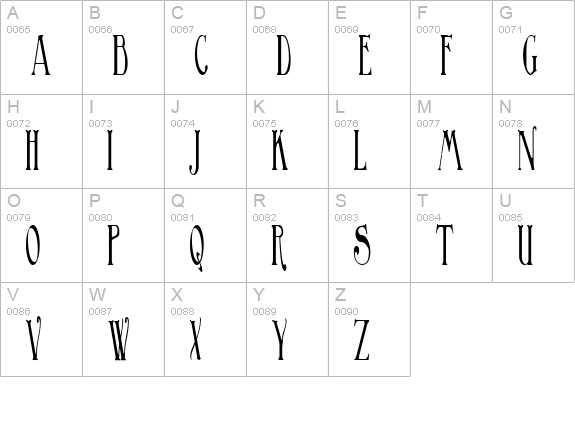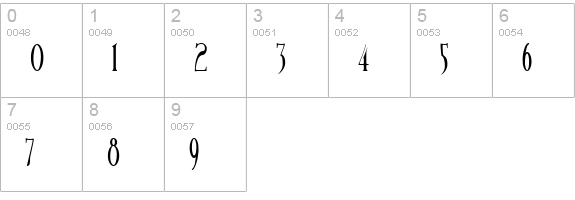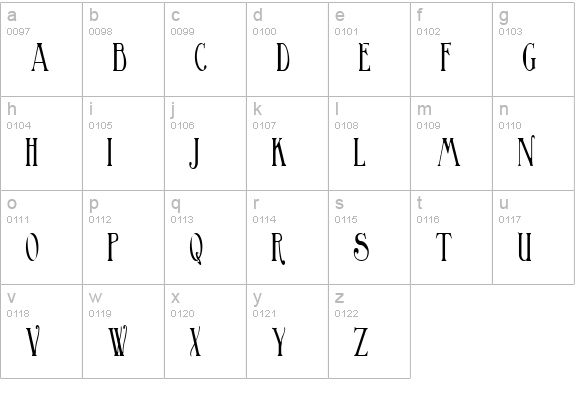
BirminghamTitlingElongated Font Details
BirminghamTitlingElongated font is a sleek and sophisticated typeface that exudes elegance and modernity. With its elongated letterforms and sharp edges, this font is perfect for creating eye-catching headlines and titles that demand attention. The tall and narrow design of the letters gives a sense of verticality and strength, making it ideal for projects that require a touch of boldness. And the best part? BirminghamTitlingElongated font is available for free download at FontsMarket.com! You can easily add this stylish font to your collection without breaking the bank. Whether you're designing posters, logos, or branding materials, BirminghamTitlingElongated font will elevate your projects to the next level with its unique and striking appearance. Don't miss out on this fantastic opportunity to enhance your designs with this stunning font - download it today and let your creativity shine!